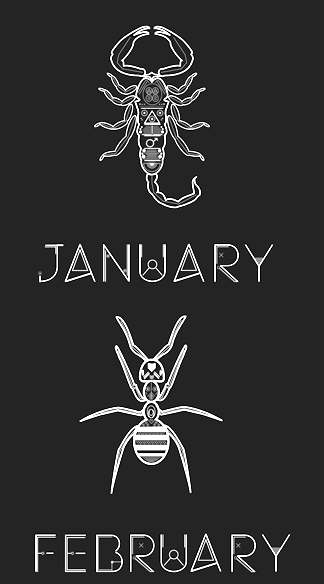
René Mambembé
During his graphic design studies in Nantes, René Mambembé designed the display typeface Meta (2013), which is unfortunately named---it has nothing to do with Spiekermann's Meta, and Knuth's even older MetaFont. |